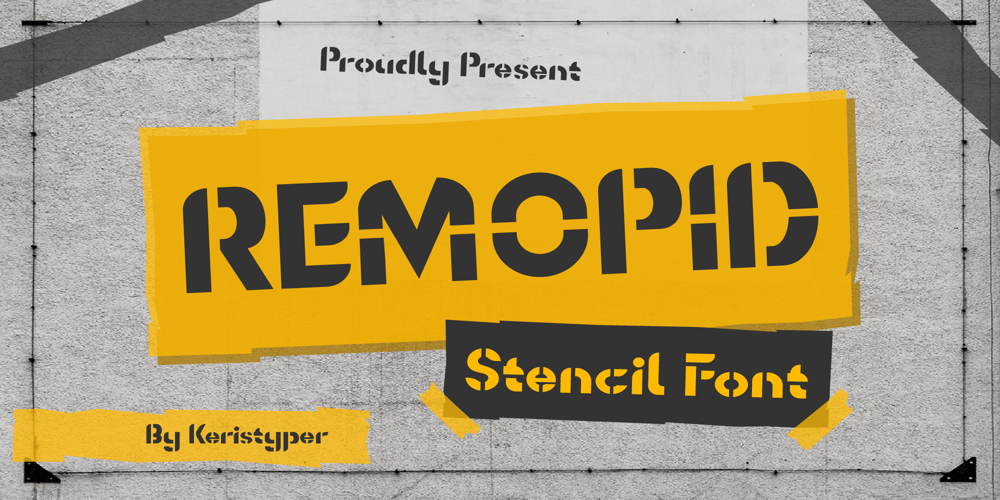
Remopid Font Family was designed by Tezar Tantular and published by Keristyper Studio. Remopid contains 1 styles and family package options. Introducing Remopid typeface, stencil display font with a strong personality. This font is good for logo design, Social media, Movie Titles, Books Titles, short text even long text letters, and good for your secondary text font with sans or serif.**Featured:*** Standard Uppercase & Lowercase* Numeral & Punctuation* Multilingual : ä ö ü Ä Ö Ü ß ¿ ¡* Alternate & Ligature* PUA encodedWe recommend programs that support the OpenType feature and the Glyphs panel such as Adobe applications or Corel Draw. so you can use all the variations of the glyphs.Hope you enjoy our fonts!